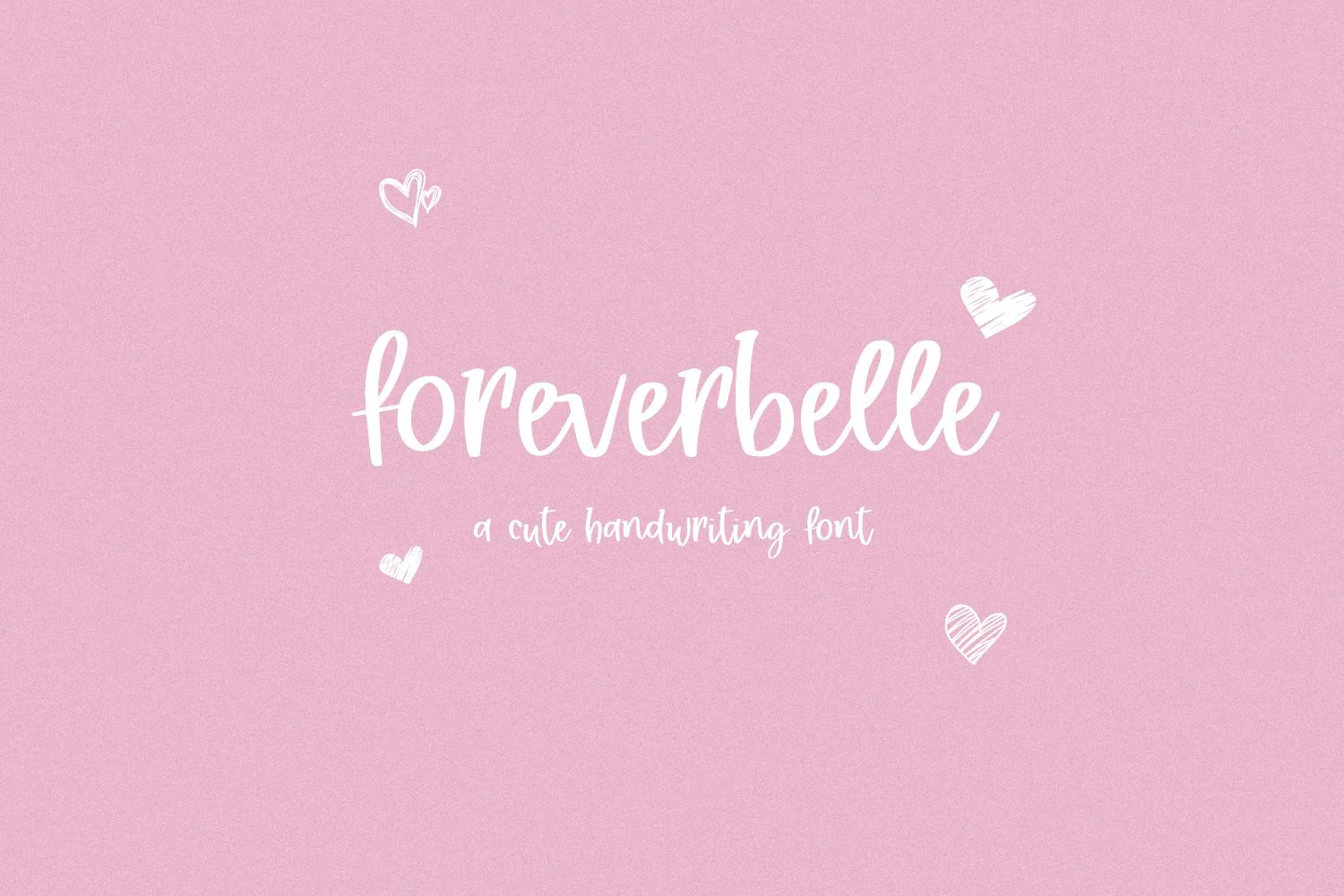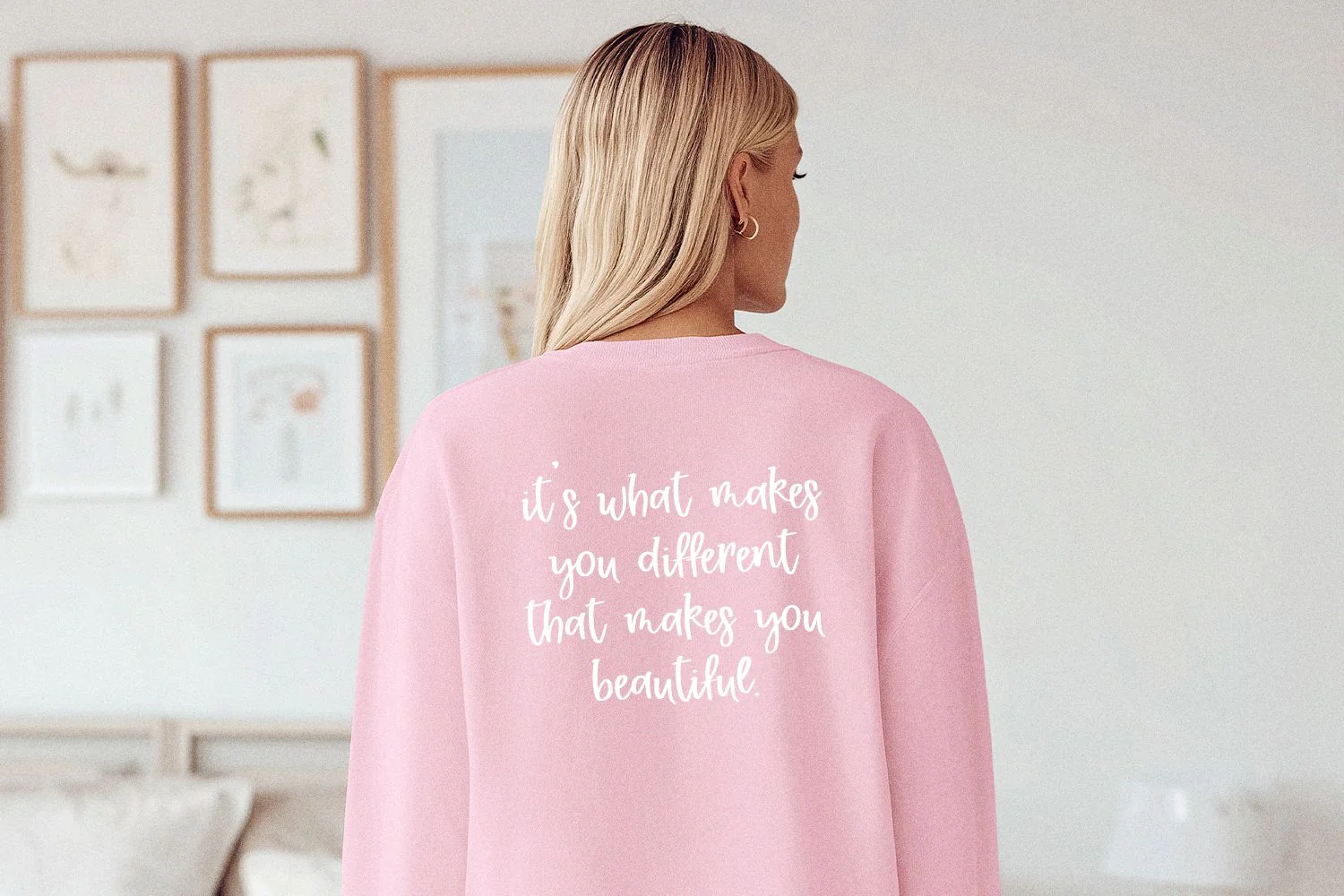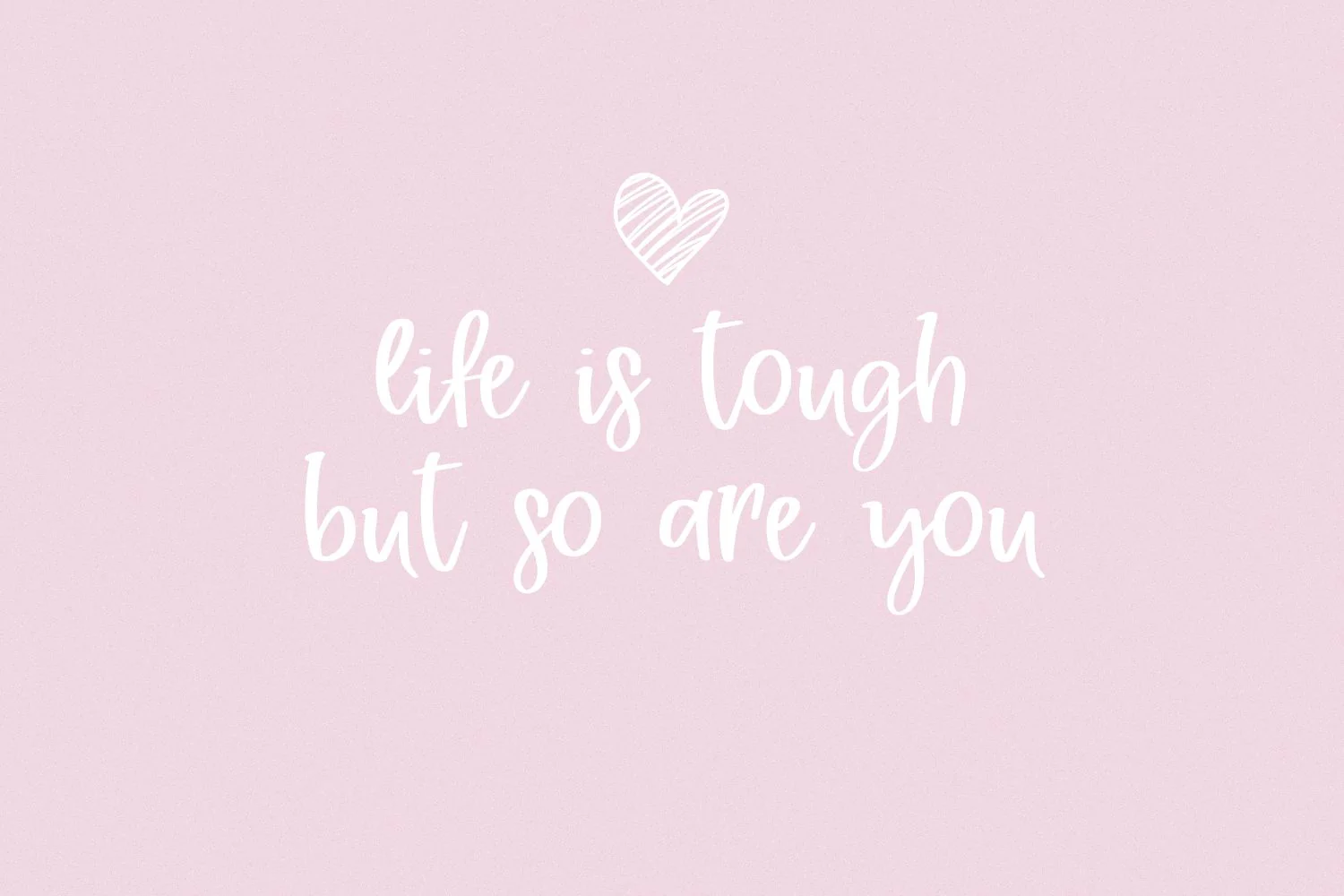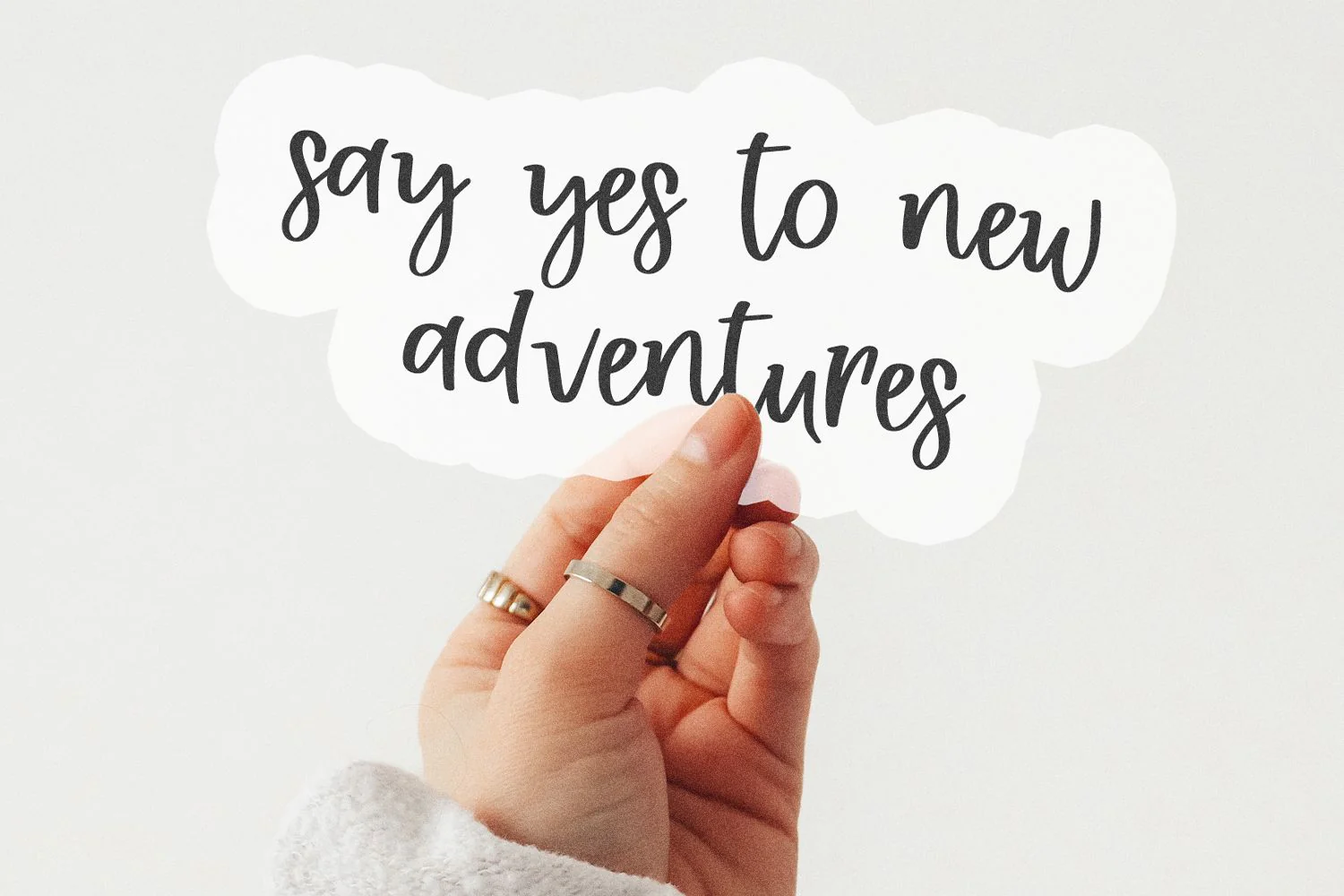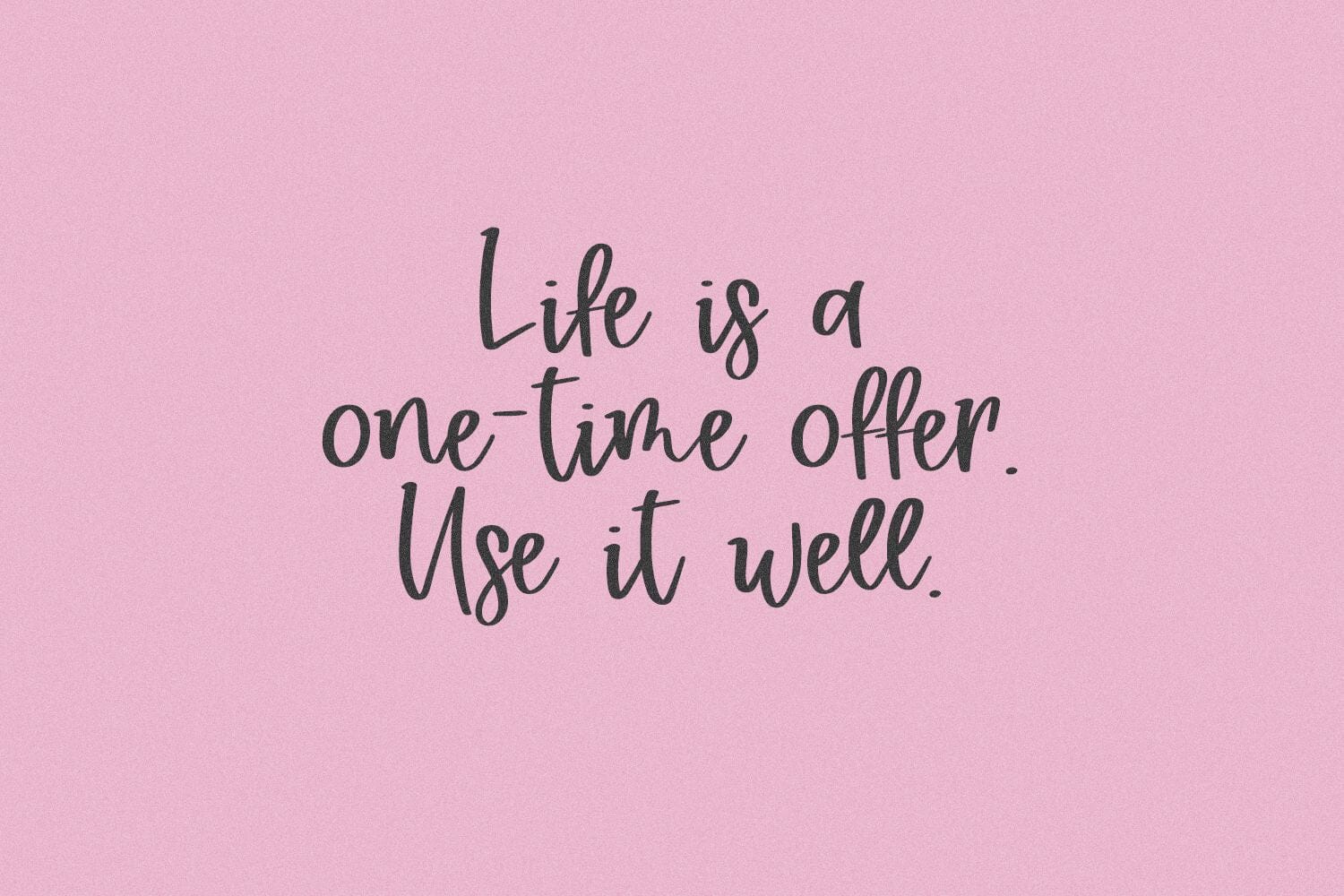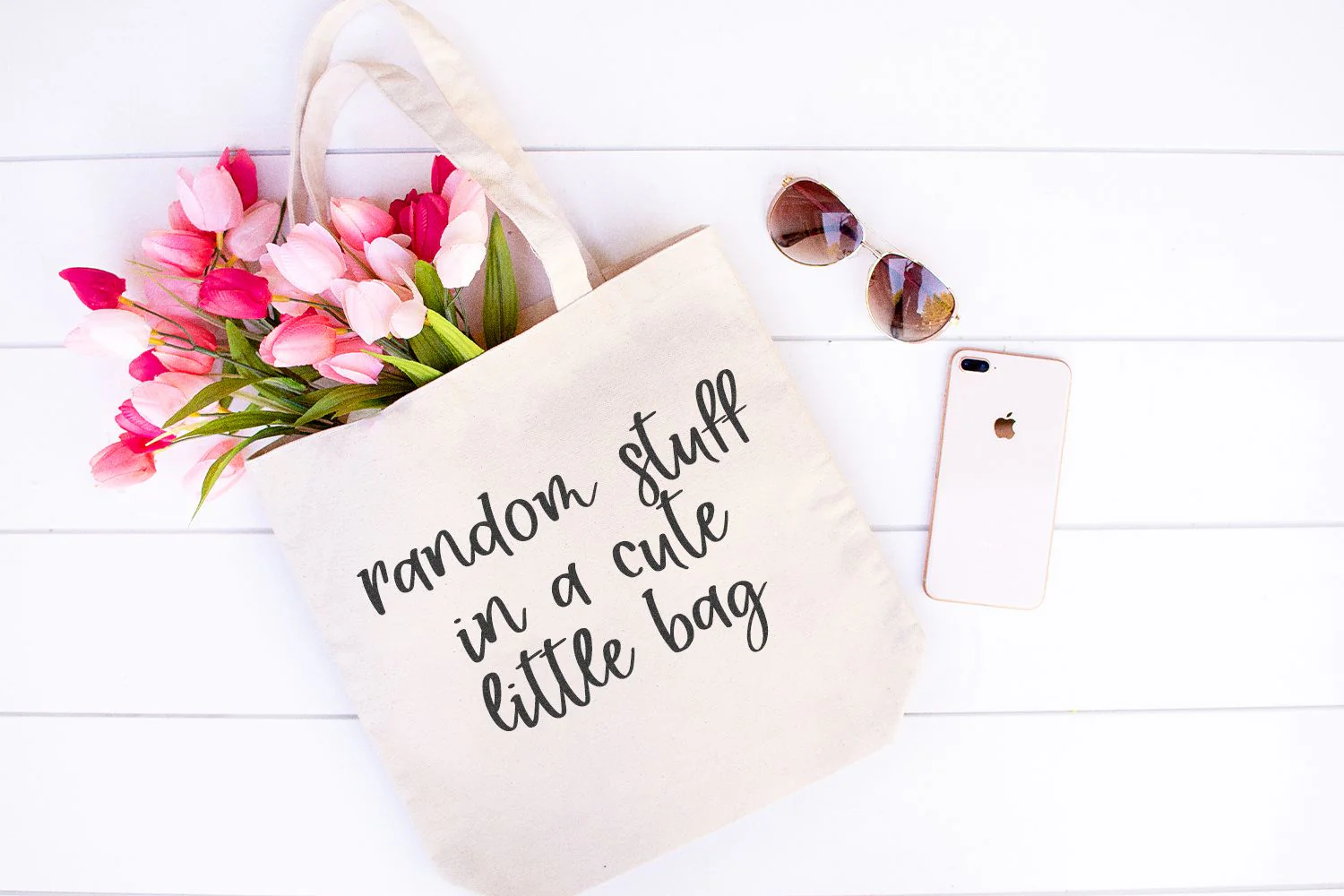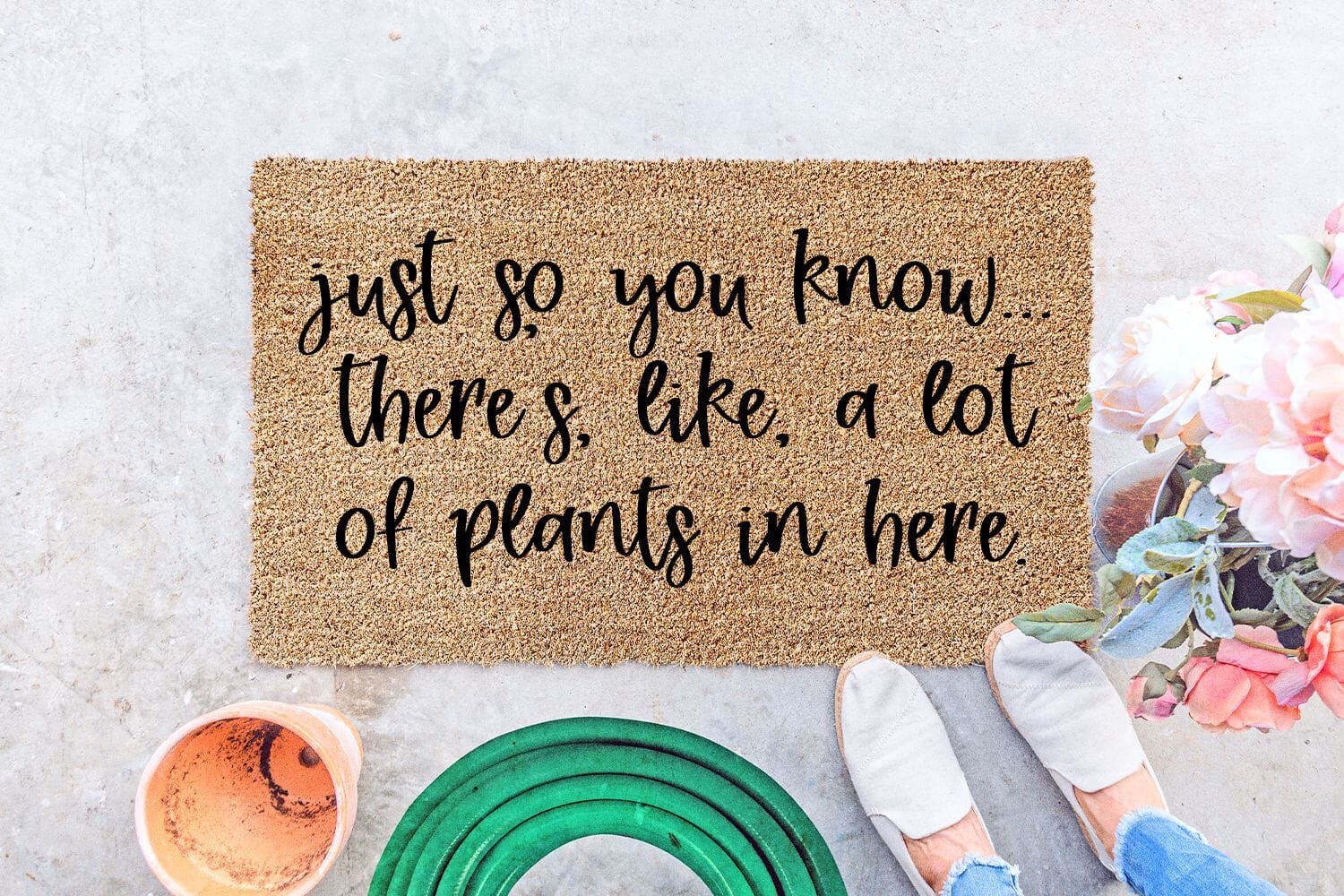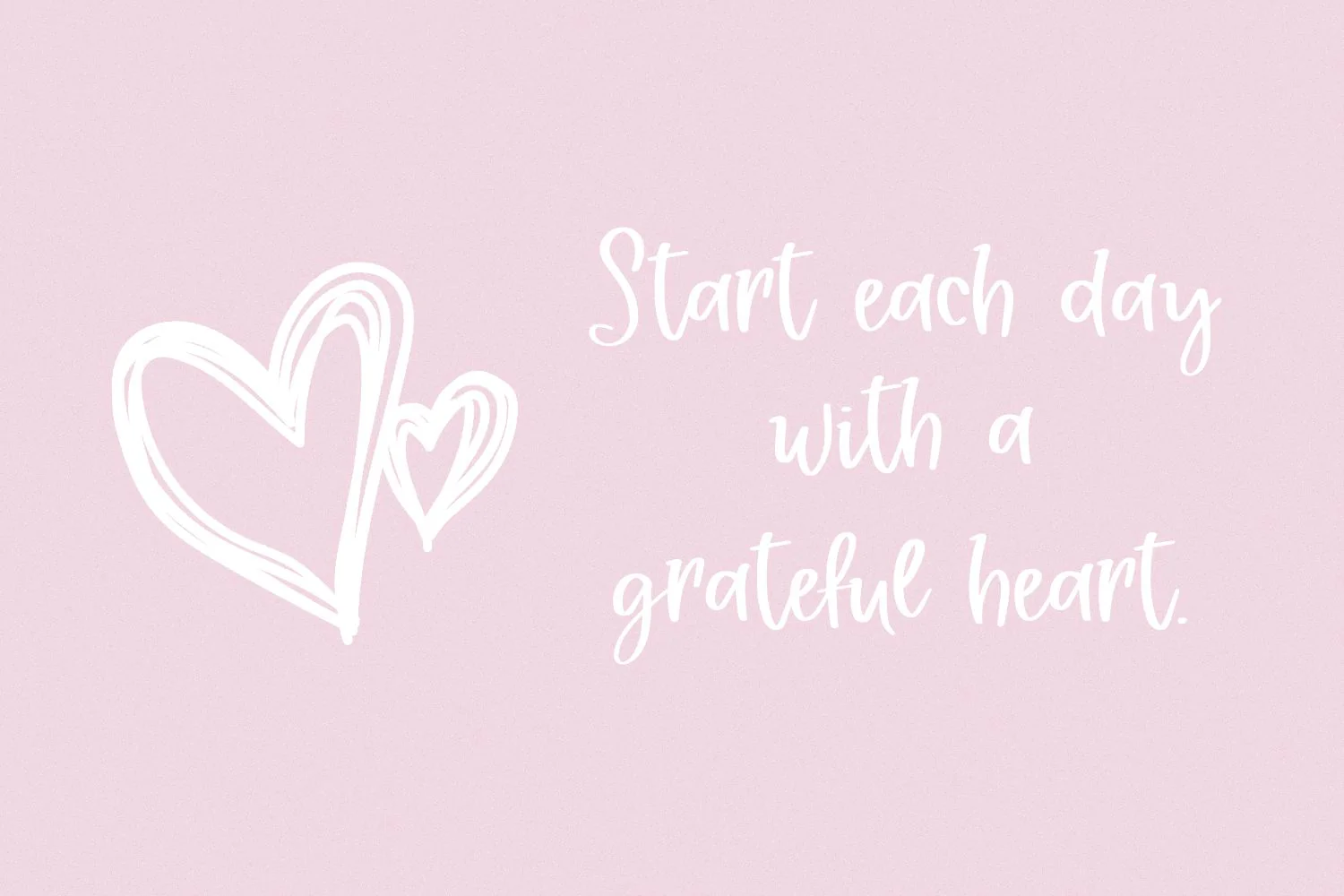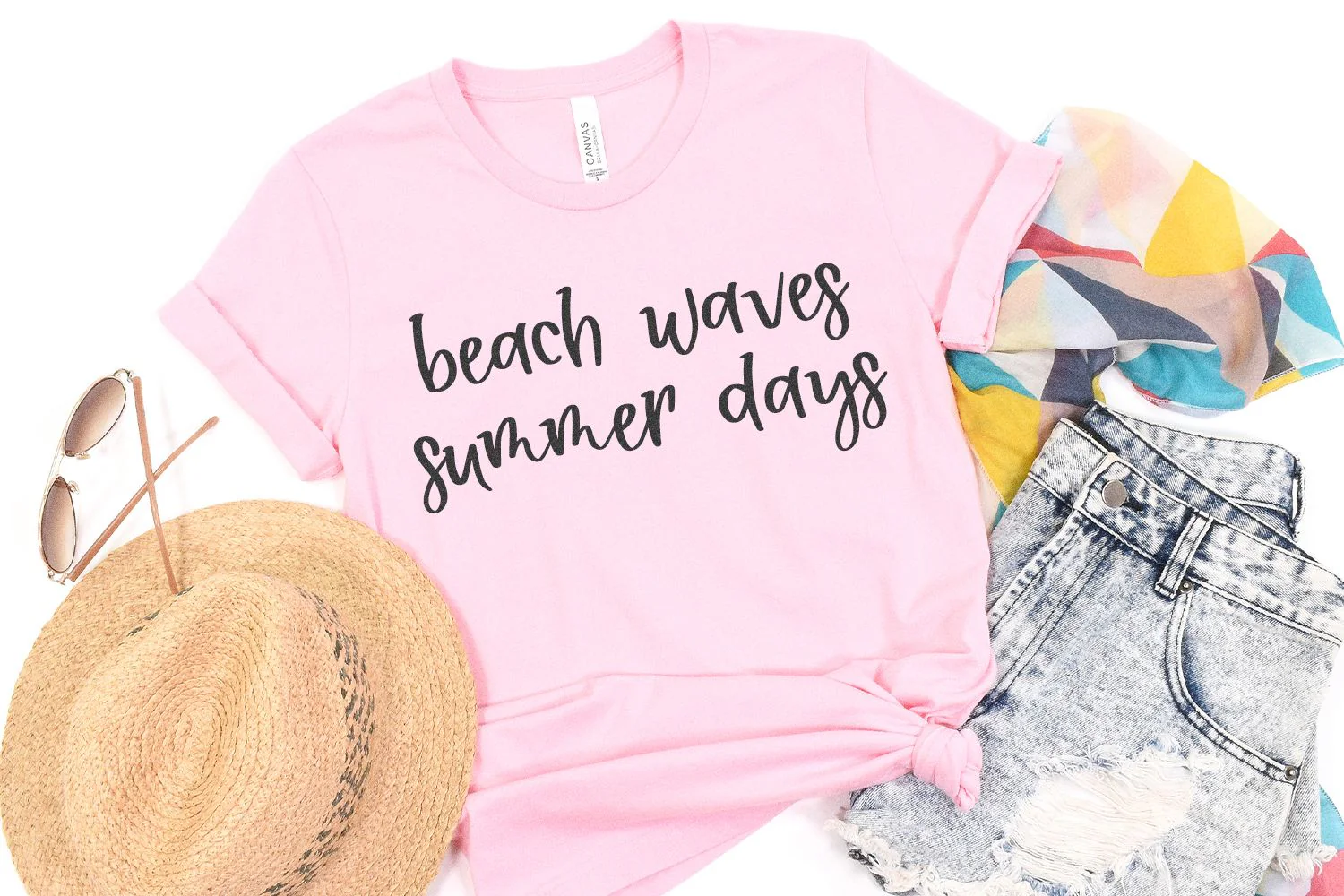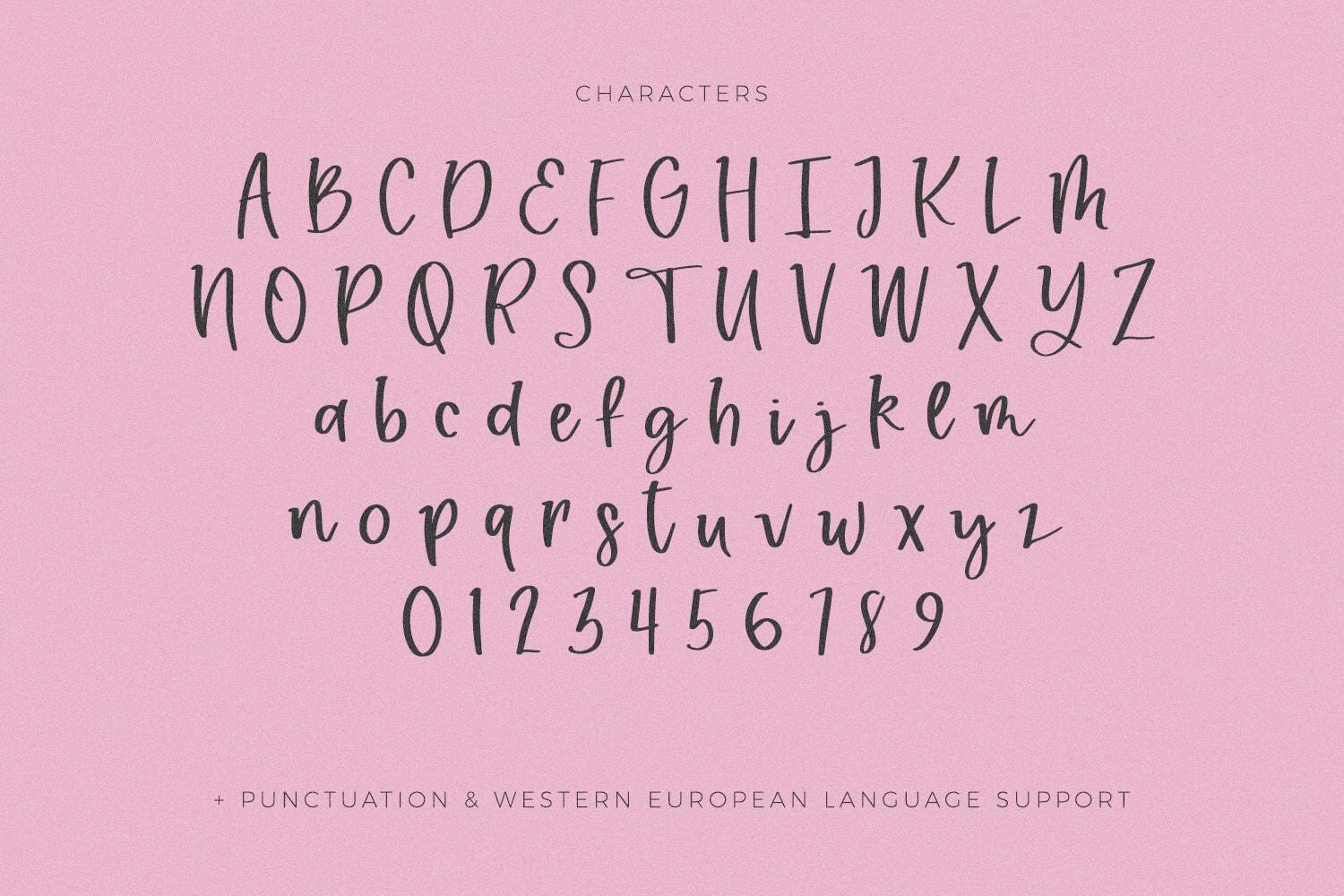
Foreverbelle Handwriting Font
Foreverbelle is a cute semi-script font, which includes some tiny little serif details on some letters. Foreverbelle is adorable and whimsical. This font has clean lines with a handwritten feel, which makes it perfect for logos & branding, greeting cards, painted banners, digital planners, note-taking apps, Canva, Cricut projects, Silhouette projects, designing SVG files, laser cutting projects, & more.